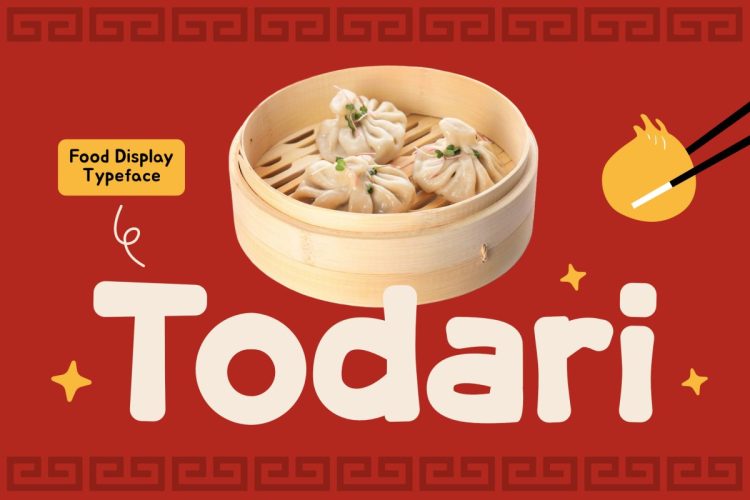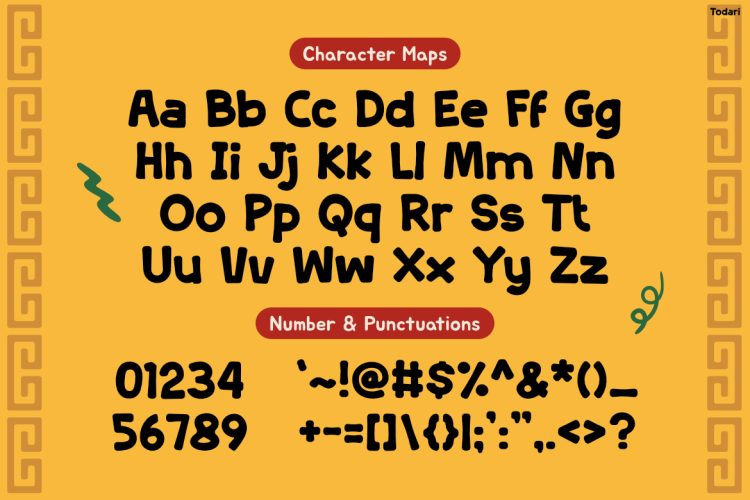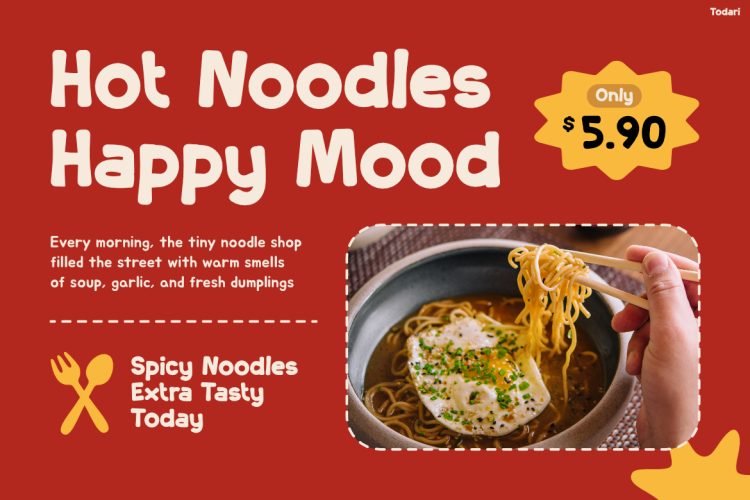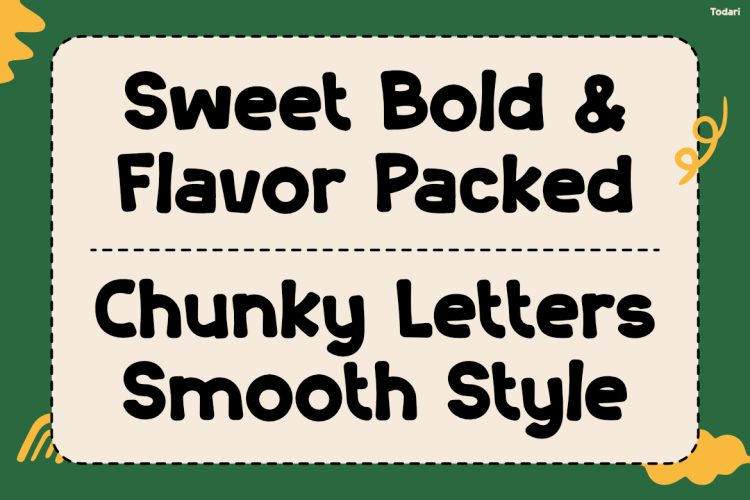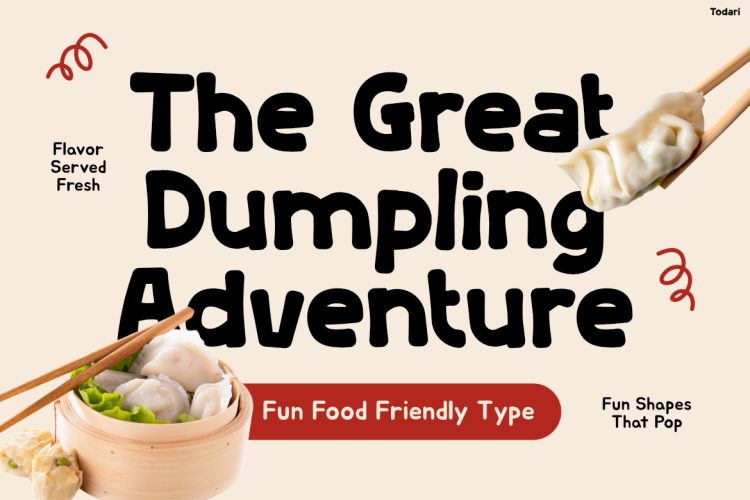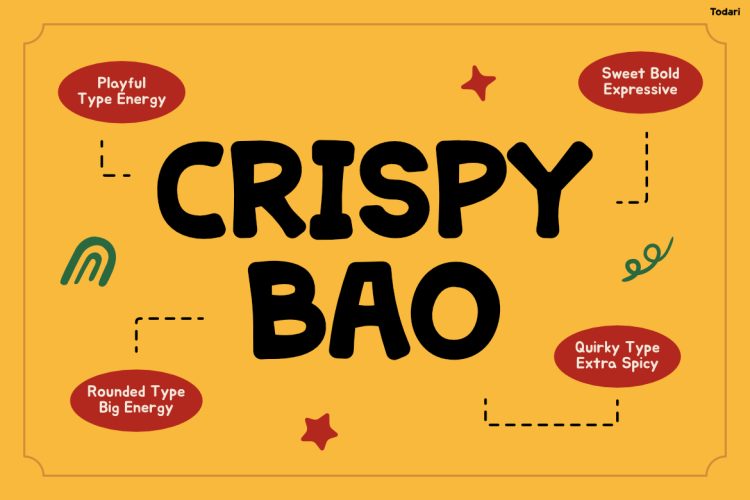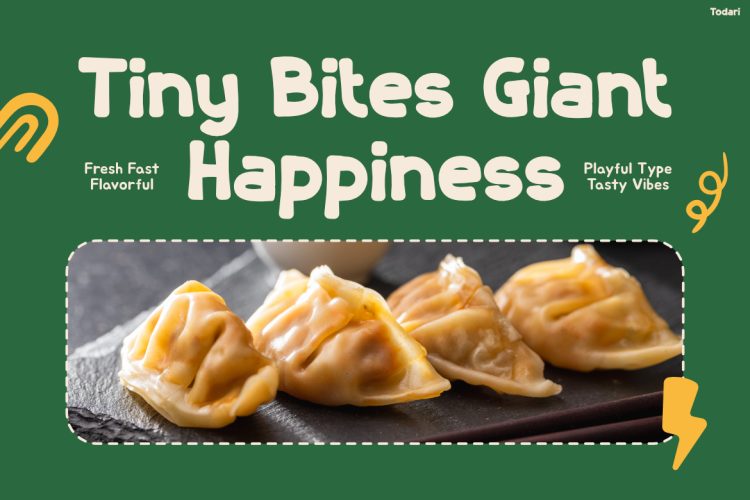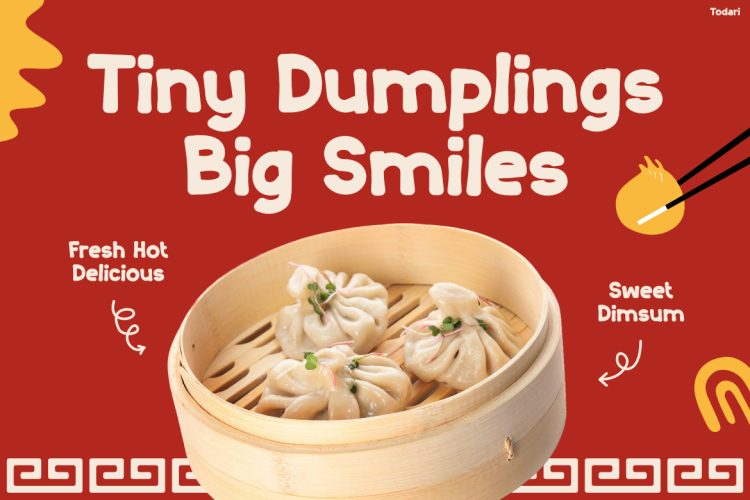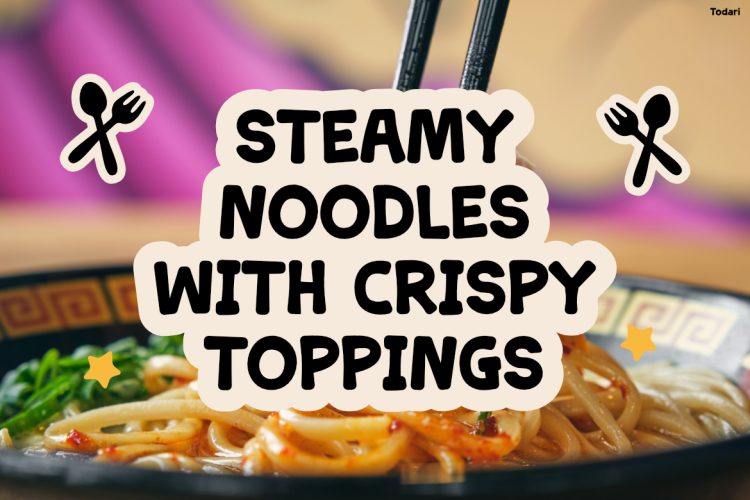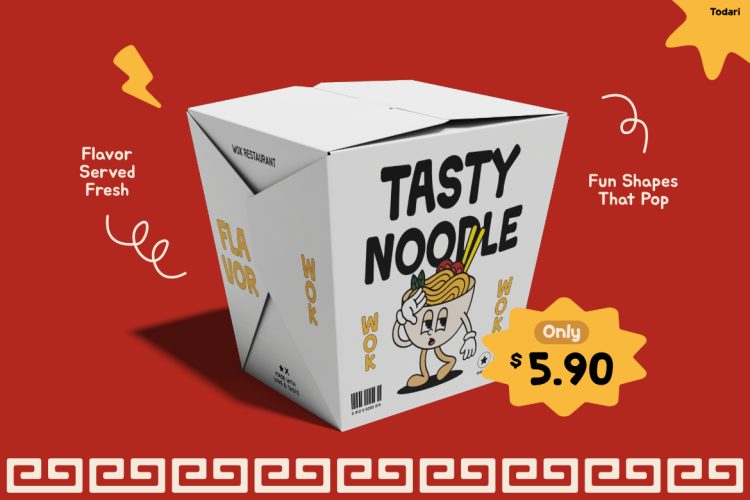
Kids Font TODARI โ Chunky Flavor with Happy Food Vibes
Kids Font TODARI brings chunky letterforms, playful curves, and cheerful food-inspired energy into every design. Moreover, the bold rounded shapes create a cute and friendly appearance that instantly grabs attention. Inspired by noodle shops, dumpling packaging, Asian street food, and colorful restaurant promotions, this font delivers a fun handmade aesthetic that feels both modern and expressive. In addition, the thick structure keeps every word highly readable while still looking playful and energetic. As a result, posters, menus, logos, packaging, and social media graphics feel more lively and memorable. Furthermore, the bold typography style helps headlines stand out clearly across both print and digital projects. At the same time, the soft character details create a warm and welcoming mood that audiences instantly enjoy. Because of its fun personality, Kids Font TODARI easily makes creative branding look more unique, tasty, and visually exciting.
Perfect for Food Branding and Playful Promotions
Designed for creators who love bold and cheerful visuals, Kids Font TODARI works perfectly for ramen shops, dumpling branding, snack packaging, cafรฉ menus, food posters, kids products, restaurant promotions, stickers, and social media content. Furthermore, the cute chunky style creates a casual and approachable atmosphere that connects naturally with modern audiences. Whether you are building restaurant branding or designing fun promotional graphics, this font adds strong visual flavor instantly. Additionally, the playful character shapes make every design feel more energetic and engaging. Meanwhile, the balanced spacing keeps text clean and easy to read across many creative layouts. Because of its versatile appearance, the font works beautifully for both professional branding and fun personal projects.
Suitable For:
- Dumpling & Noodle Branding
- Kids Packaging
- Food Posters
- Snack Logos
- Cafรฉ Menus
- Restaurant Promotions
- Social Media Graphics
- Stickers & Merchandise
- Fun Advertising Designs
Add Extra Flavor to Your Designs
With its bold chunky style and playful food-inspired personality, Kids Font TODARI helps every project feel happier, louder, and more eye-catching. Therefore, if you want branding that instantly looks fun, tasty, and unforgettable, this font is the perfect choice to level up your creative projects today.